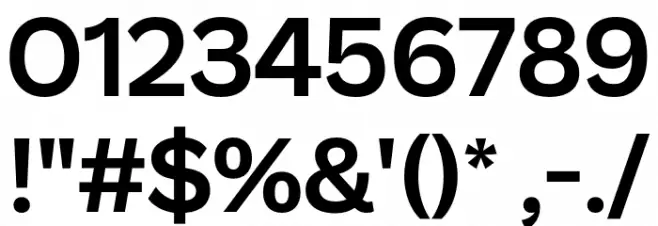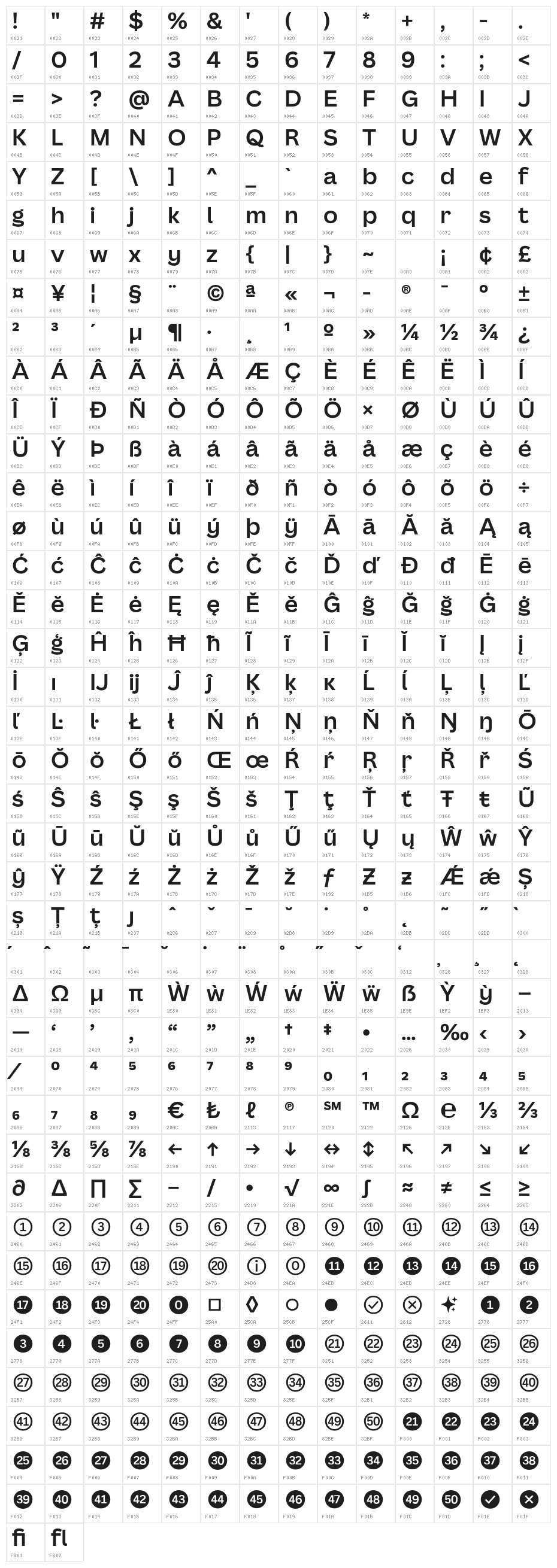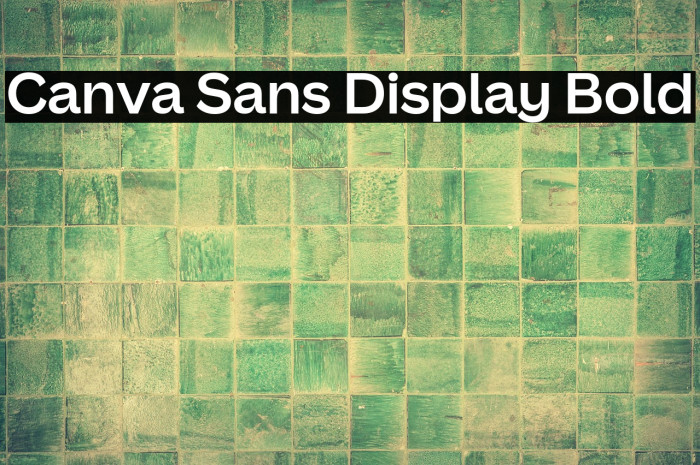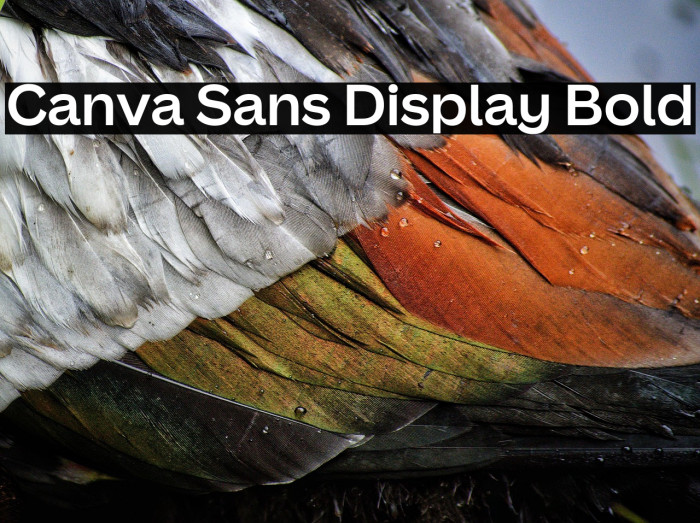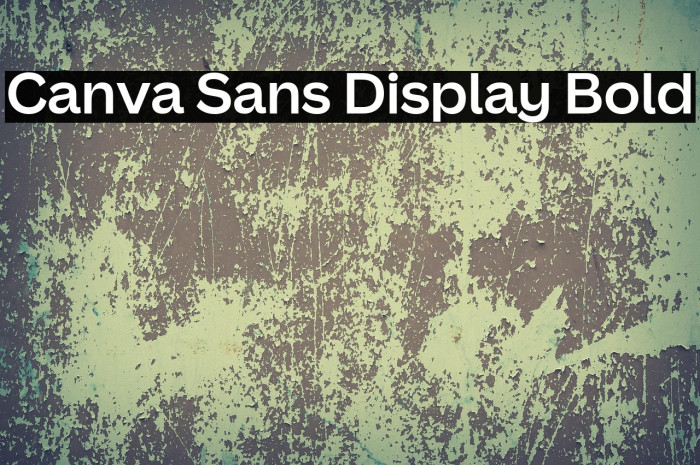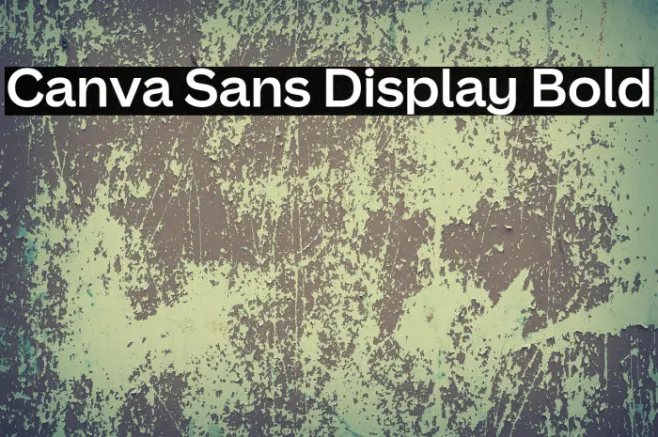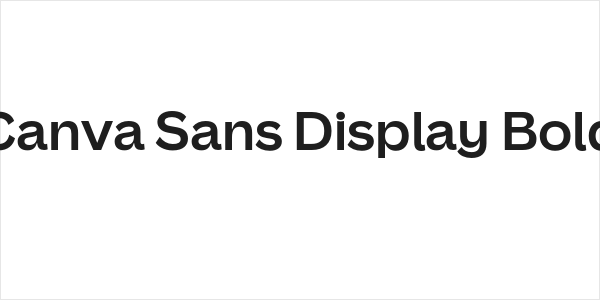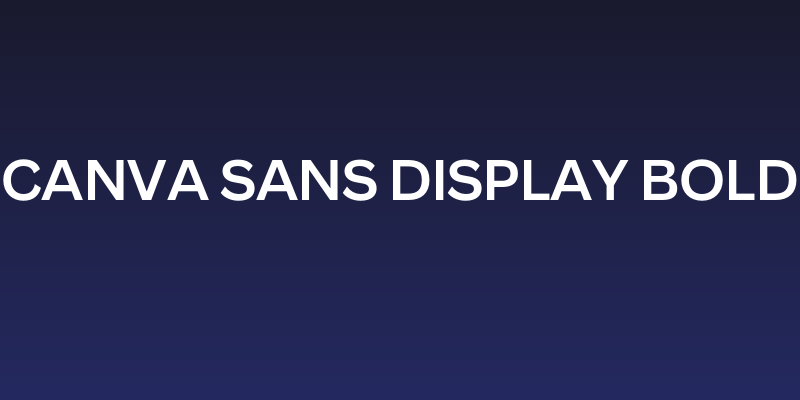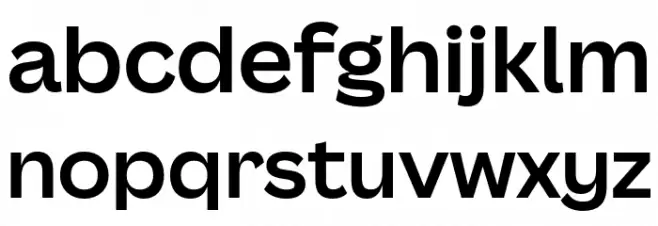
Canva Sans Display Bold Font
Canva Sans Display Bold Description
This font features a clean and modern sans-serif design with a bold weight. The characters are well-proportioned, offering a balanced and harmonious appearance. The strokes are uniform, providing a consistent and professional look. The uppercase and lowercase letters are distinct, with rounded edges that soften the overall aesthetic. The numerals are clear and easily readable, making them suitable for various applications. Special characters are included, maintaining the same bold and straightforward style. The font's simplicity and clarity make it versatile for both digital and print media.
| Use Case | Headlines, Logos, Digital content |
| Proposed Projects | Ideal for branding, advertising, headlines, and digital content where clarity and modernity are essential. |